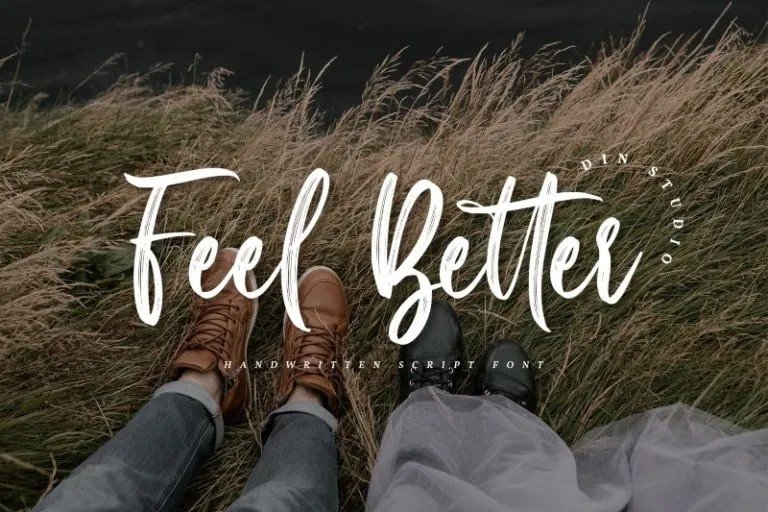
Feel Better Brush Font
Feel Better Brush Font is a lovingly handwritten brush script , with an air of grace and flamboyancy. Made from font designer named Din Studio. This font is a elegant handwritten font. The handwritten combined with brush font will make your design project more beautiful. Made for any professional project branding. It is the best for logos, branding and quotes.